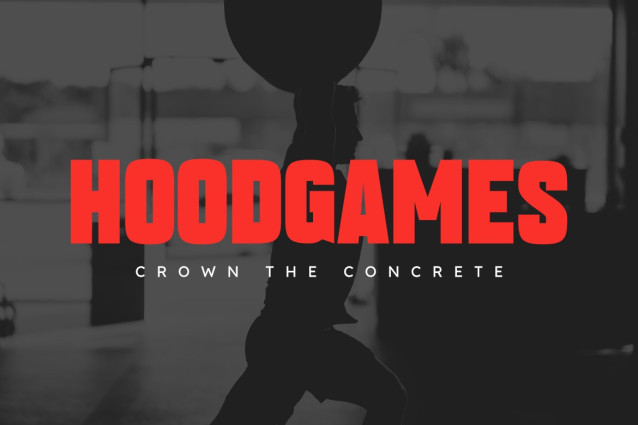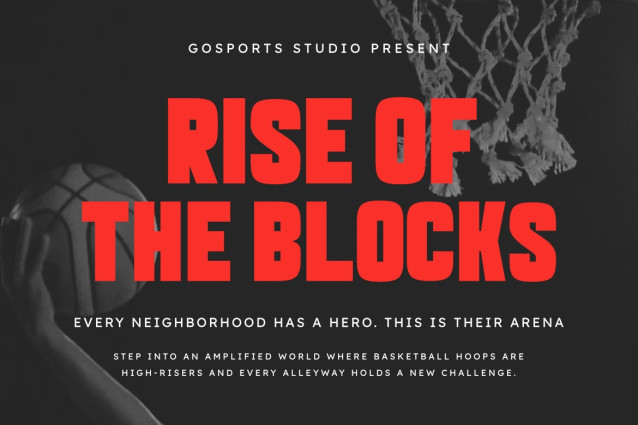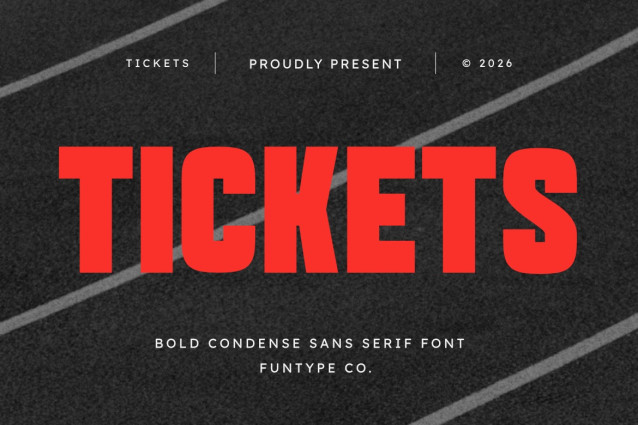
Tickets – Bold Condensed Sans Serif Font
Tickets is a high-impact, bold, and condensed sans serif display font, engineered to deliver a solid athletic presence, strong vertical proportions, and a dynamic display aesthetic to modern visual layouts. Built with heavy block letterforms and space-saving geometry, Tickets brings an authoritative sports broadcast identity, race event promotion, high-energy editorial publishing, and prominent digital media presence designed to capture immediate visual attention.
This typeface is an ideal choice for creative directors, athletic event organizers, and media publication designers looking for a commanding typographical identity. Whether you are creating bold corporate logotypes, championship sports posters, energetic beverage packaging labels, cinematic action movie titles, outdoor billboard headers, or high-contrast web banners, Tickets delivers exceptional legibility and visual strength.
- Bold Condensed Display Structure: Tailored with a compact horizontal width and heavy vertical strokes for high-impact title compositions.
- Dynamic Athletic Geometry: Solid block forms with clean cutouts designed to secure maximum visual focus.
- Multilingual Support: Fully equipped for international design projects and marketing campaigns.
- High-Energy Sports Aesthetic: Perfectly suited for sports journalism, marathon events, fitness media, and active lifestyle branding.